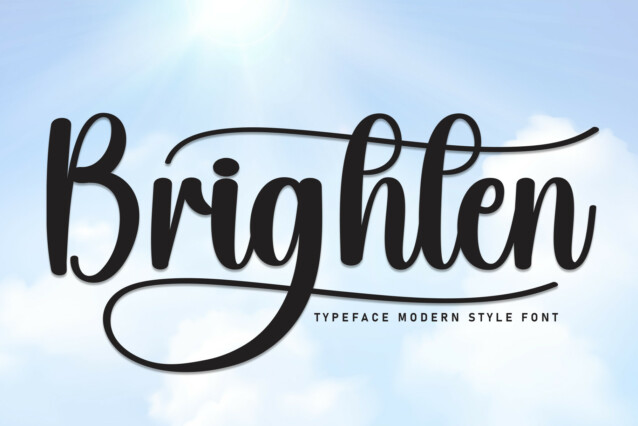
Brighten Italic Font is perfect for modern branding projects, fashion magazines, beauty product packaging, lifestyle blogs, advertising campaigns, social media graphics, book titles, wedding stationery, cosmetic labels, and contemporary poster designs that require a dynamic and energetic typographic presence.
This font is exciting because its italic slant creates natural movement and visual energy that draws the eye across the page, while maintaining exceptional elegance and readability. The forward-leaning letterforms convey progress, optimism, and sophistication, making every design feel more vibrant and contemporary with minimal effort.
The Brighten Italic Font family typically includes complete uppercase and lowercase alphabets, numerals, punctuation marks, special characters, and accent marks that ensure versatility across multiple languages and diverse design applications.
Whether you're creating sleek brand identities, designing eye-catching advertisements, or developing editorial layouts that demand attention, Brighten Italic Font Free Download delivers the perfect combination of style and functionality. Its distinctive slanted characters add personality and momentum to any project, ensuring your message resonates with modern audiences while maintaining professional polish and visual appeal that elevates every creative endeavor to new heights.